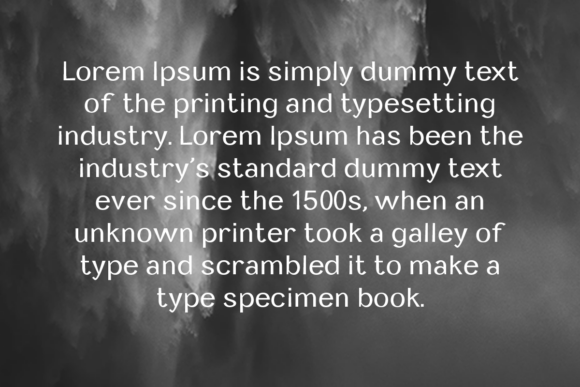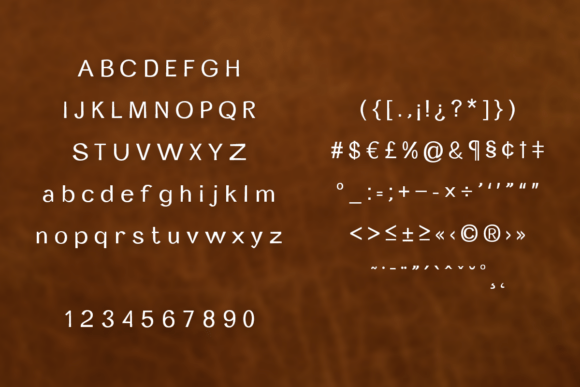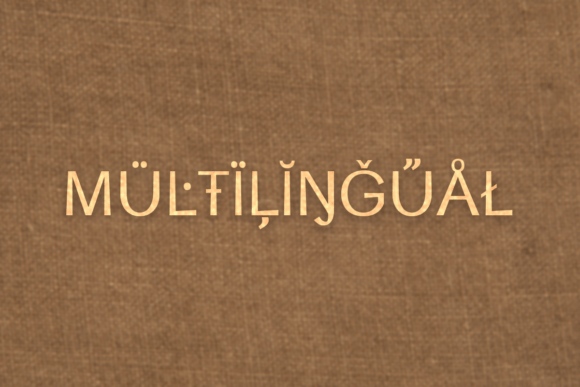
Introducing Beguile Time Font: Elevate Your Designs with Modern Elegance
In the world of typography, a well-crafted font can make all the difference in elevating your design to new heights. Meet Beguile Time, a modern sans-serif typeface that is poised to revolutionize the way you approach your creative projects. With its clean, balanced, and professional aesthetic, Beguile Time is the perfect choice for designers and crafters looking to add a touch of sophistication to their work.
Unparalleled Versatility and Multilingual Support
What sets Beguile Time apart is its impressive feature set, boasting over 1000 glyphs with broad multilingual support. This extensive character set ensures that you can create with confidence, knowing that your text will be clear and legible across a wide range of languages. Whether you’re working on a global brand campaign or a personal project with international appeal, Beguile Time has got you covered.
Designed for Readability and Aesthetic Appeal
Beguile Time’s design is centered around delivering excellent readability without compromising on style. Its carefully refined spacing and versatile letterforms make it an ideal choice for various applications, from print books and editorial layouts to branding, logos, posters, web design, and more. This font’s balanced and professional look ensures that your message is conveyed with clarity and impact, making it perfect for both display and body text.
Applications Across Creative Disciplines
The versatility of Beguile Time is one of its most compelling features. Here are just a few examples of how this exceptional font can enhance your creative projects:
- Print Books and Editorial Layouts: Achieve a sophisticated look in your publications with Beguile Time’s clear and readable design.
- Magazines: Elevate your magazine’s typography with a font that combines elegance and legibility.
- Branding and Logos: Create memorable brand identities with Beguile Time’s modern and professional aesthetic.
- Posters: Make a statement with eye-catching posters that showcase the font’s versatility and impact.
- Web Design: Enhance your website’s typography with a font that is optimized for digital use, ensuring a seamless user experience.
Crafting Excellence: The Construction of Beguile Time
Beguile Time’s high-quality construction is evident in its diverse character set and meticulous attention to detail. The font’s design ensures clarity and consistency at any size, making it an invaluable asset for designers who demand the best. Whether you’re working on a large-scale project or a small creative endeavor, Beguile Time’s flexibility and reliability make it the perfect companion.
Why Choose Beguile Time?
With so many fonts available, why choose Beguile Time? Here are a few compelling reasons:
- Modern Aesthetic: Stay ahead of the curve with a font that embodies contemporary design principles.
- Broad Multilingual Support: Communicate effectively with a global audience.
- High Readability: Ensure your message is understood clearly, across various mediums.
- Versatility: Use Beguile Time across a wide range of creative projects, from print to digital.
Beguile Time Font is more than just a typeface – it’s a tool for creative expression and effective communication. Its modern sans-serif design, extensive multilingual support, and exceptional readability make it an indispensable asset for designers and crafters alike. Whether you’re looking to elevate your branding, enhance your website, or add a professional touch to your print materials, Beguile Time is the perfect choice. Discover the difference that Beguile Time can make in your creative projects and experience the art of typography like never before.